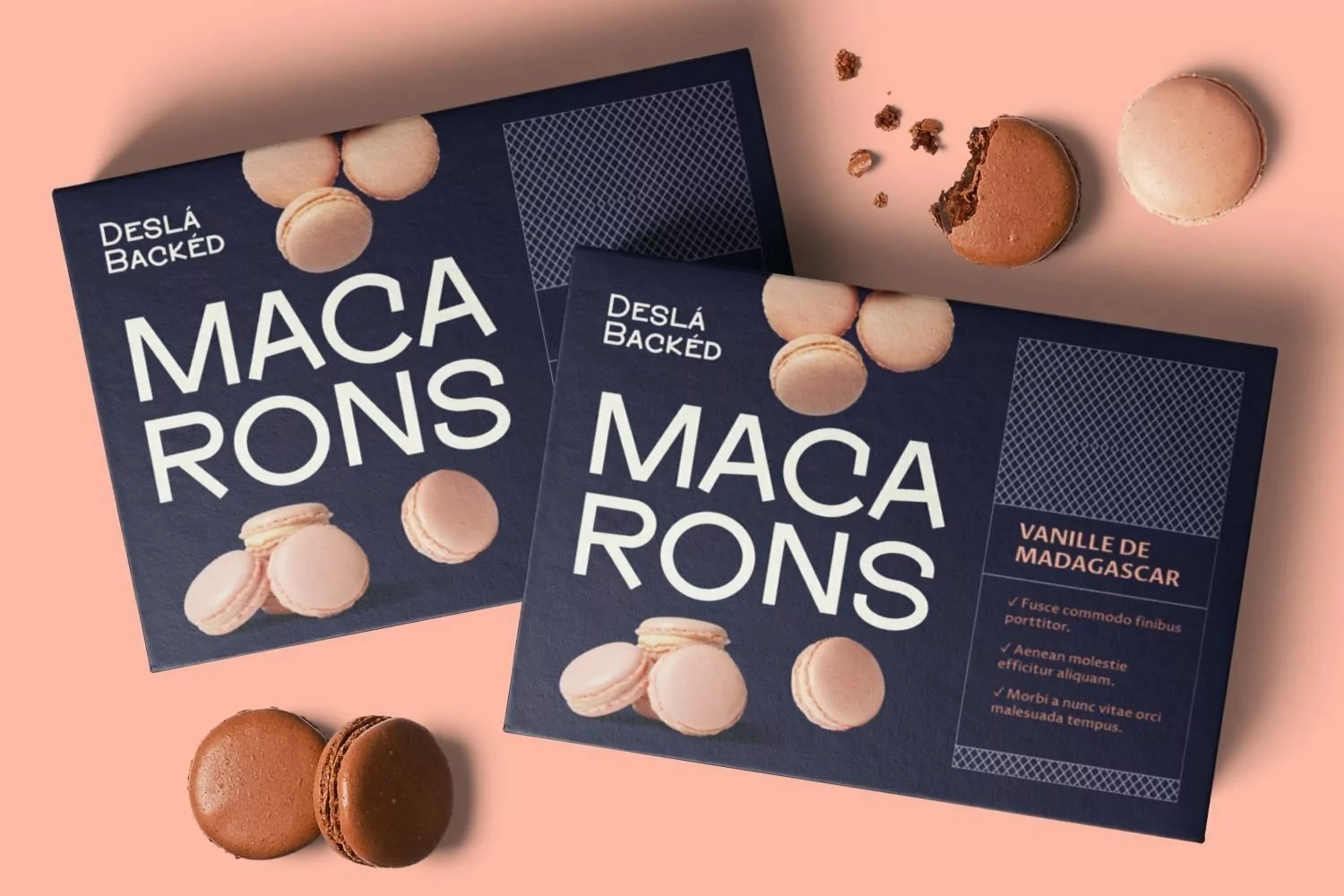
McKenzie is sans serif display come with playful themes. We wanted to create the most clean and simple. It matches applies in some designs such as the logotype, brand, packaging, quotes, pet poster, kids shirt, cover book, birthday invitation and more custom design. The features uppercase, lowercase, numeral, punctuation & symbol, multilingual support.